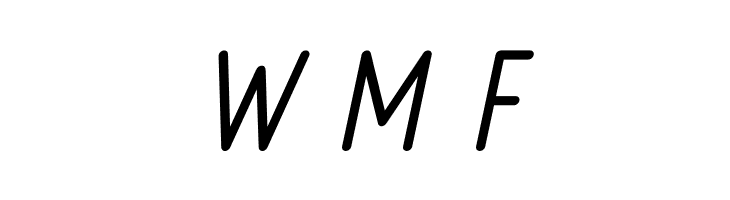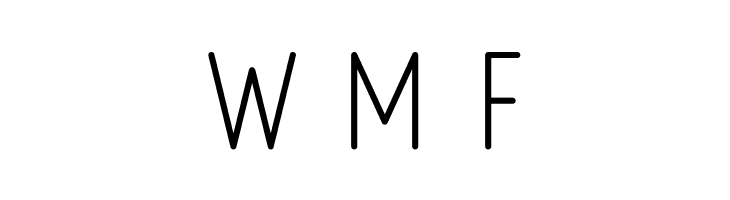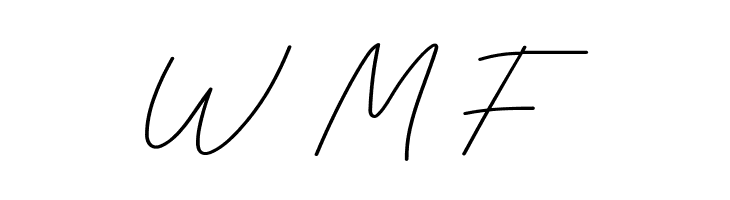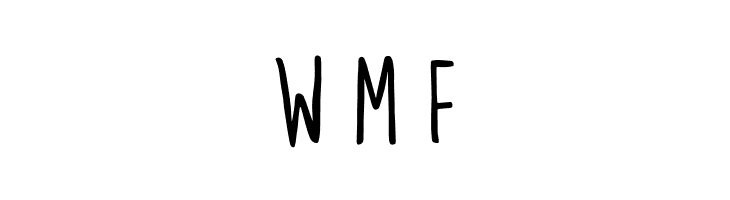
A clean, minimalist font with thin, uniform strokes and a modern aesthetic.
A bold, classic serif font with strong serifs and balanced design.
A clean, modern sans-serif font with excellent legibility and balance.
A geometric, pixelated font with a minimalist and digital aesthetic.
A bold slab serif font with a mechanical and structured design.
A pixelated, blocky font with a retro digital style.
A pixelated, geometric outline font with a retro digital aesthetic.
A bold, modern sans-serif font with clean lines and geometric shapes.
A bold, modern font with geometric lines and strong presence.
A sleek, modern, light italic font with high contrast and elegant style.
A modern, italicized font with narrow, elongated letterforms and tight spacing.
A thin, elongated, and modern font with a sleek and minimalist style.
A modern, tall, and narrow sans-serif font with a sleek and professional appearance.
A thin, italicized font with a sleek and elegant design.
A modern, dotted font with a digital and futuristic appearance.
A playful, flowing handwritten font with elegant loops and smooth cursive strokes.
A flowing, cursive font with elegant and sophisticated styling.
A bold, distressed font with a vintage, industrial feel.
A bold, italicized font with rounded edges and a modern, approachable style.
A modern, italicized font with sleek, elongated characters and consistent stroke thickness.
A clean, geometric font with a modern and minimalist design.
A modern, rounded sans-serif font with clean lines and balanced spacing.
A modern, rounded font with bold weight and smooth curves.
A modern, light, and condensed sans-serif font with uniform strokes.
A bold and striking font with thick strokes and elegant curvature.
A bold, playful font with star motifs in each character.
A bold, playful font with star motifs and rounded characters.
A fluid, elegant handwritten font with a consistent stroke width.
A bold, heavy font with a rough, distressed texture for a rugged, industrial look.
A bold, playful font with rounded, hand-drawn characters.
Playful handwritten font with elongated characters.
A bold, decorative font with an organic, splattered appearance.